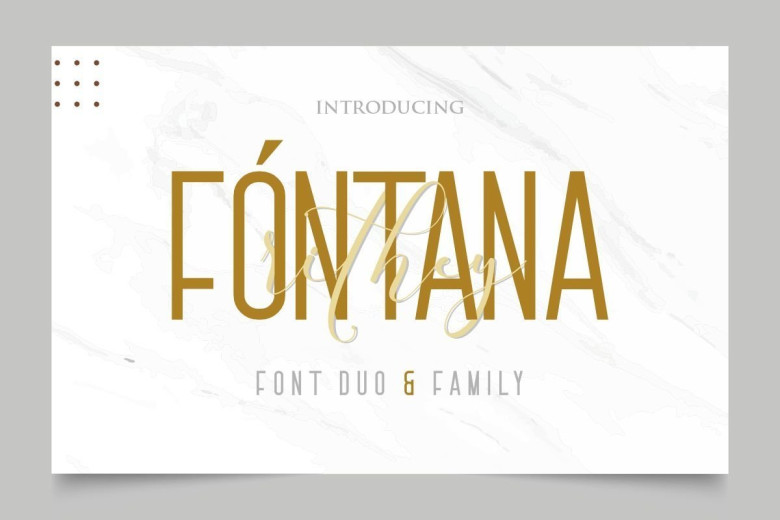
Fóntana Modern Simple Sans Font
Fóntana Font is modern simple sans font with lowercase and uppercase letters to support the best legibility possible. Fóntana font can be used for various purposes such as logos, branding, t-shirts, letterheads, signage’s, labels, and much more!